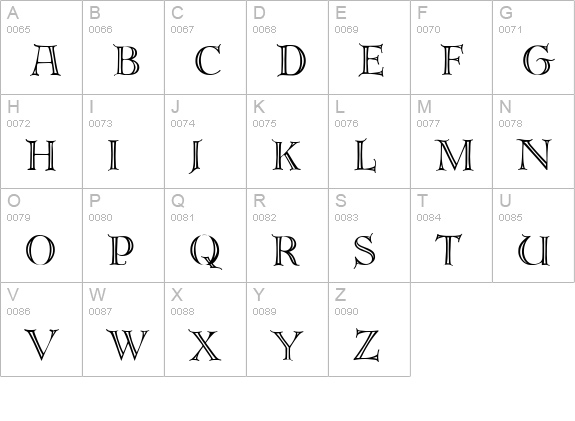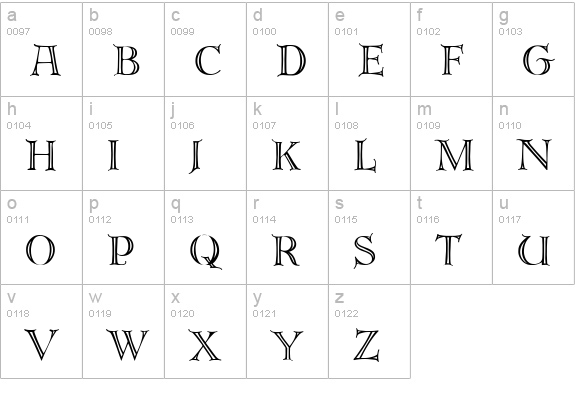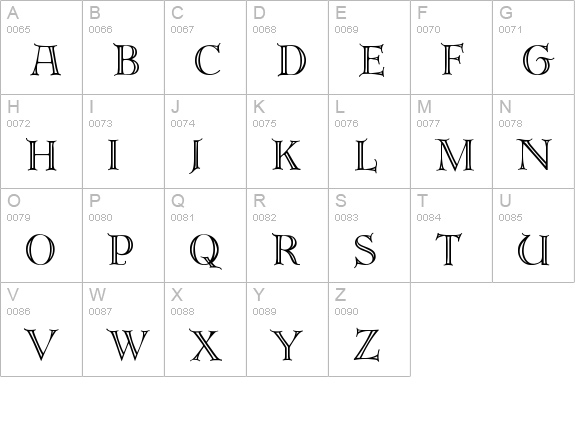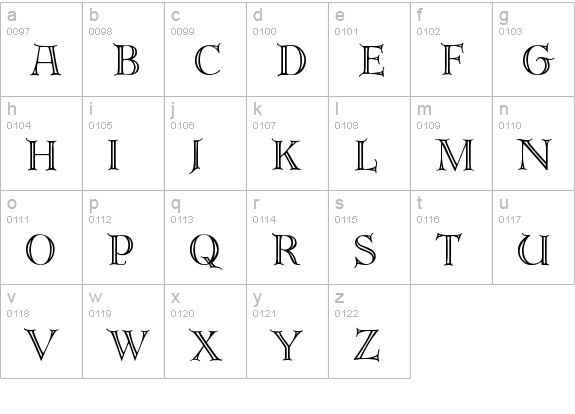
E820-Deco-Regular is the standard, neutral variant in the E820 typeface family \xE2\x80\x94 well suited to general body text, paragraphs, and standard typographic work.
E820-Deco-Regular is a stylish and elegant font that exudes a sophisticated Art Deco vibe. Its sleek lines and geometric shapes make it perfect for adding a touch of class to any design project. This versatile typeface is ideal for use in headings, titles, and logos, as well as on invitations and posters. E820-Deco-Regular is available for free download at FontsMarket.com, making it easily accessible for all designers looking to elevate their work with a touch of timeless elegance. With its bold yet refined aesthetic, this font is sure to make a statement and capture attention wherever it is used.